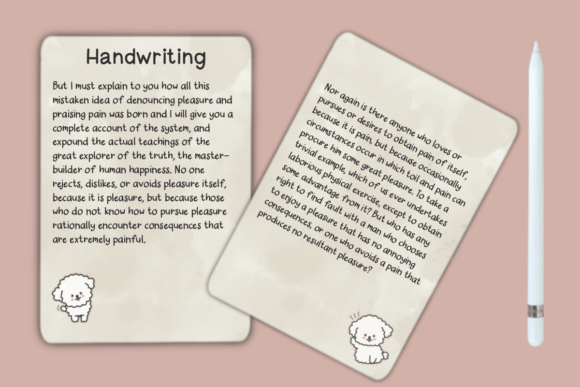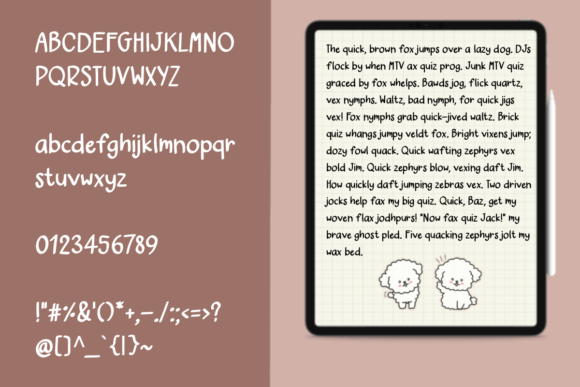
The Perfect Script for Your Next Crafty Project
Remember that moment when you sat down with a blank card, a marker, and a spark of creativity? The possibilities were endless, and your imagination ran wild with all the beautiful designs you could create. For many crafty enthusiasts, that moment is a regular occurrence, and the right tools can make all the difference. That’s where the Brown Sugar Font comes in – a charming handwriting font designed to bring your creative ideas to life.
With its well-balanced characters and elegant touch, the Brown Sugar Font is perfect for a wide range of crafty projects, from greeting cards and wall art to mugs and stickers. As a designer, you’ll appreciate the versatility of this font, which includes uppercase and lowercase letters, numbers, and basic punctuation. Whether you’re looking to add a personal touch to a gift or create a unique piece of decor, the Brown Sugar Font is an invaluable asset in your creative toolkit.
Brown Sugar Font Key Features
- Font Family: Brown Sugar is a sans-serif script font.
- Unique Characteristics: Brown Sugar features a unique, handwritten style with a warm and inviting tone, making it perfect for creative and artistic projects.
Brown Sugar Font Review
Overall, I’m quite impressed with the Brown Sugar Font. It has a warm and inviting aesthetic that’s perfect for designs that need a touch of personality. ✨ The font’s unique combination of rounded edges and classic typography makes it a great choice for both digital and print projects.
- Warm and inviting aesthetic
- Unique combination of rounded edges and classic typography
- Works well for both digital and print projects
- Available in multiple weights and styles
One of the standout features of the Brown Sugar Font is its versatility. It can be used for a wide range of projects, from branding and packaging to advertising and editorial design. ✨ The font’s high level of customization also makes it a great choice for designers who need to create unique and engaging visual content.
- May not be suitable for projects that require a more modern or minimalist aesthetic
- Some users may find the font’s rounded edges too cursive or ornate
Overall, I would recommend the Brown Sugar Font to designers who are looking for a unique and versatile font that can add personality to their designs. While it may have some limitations, its strengths make it a great choice for a wide range of projects.